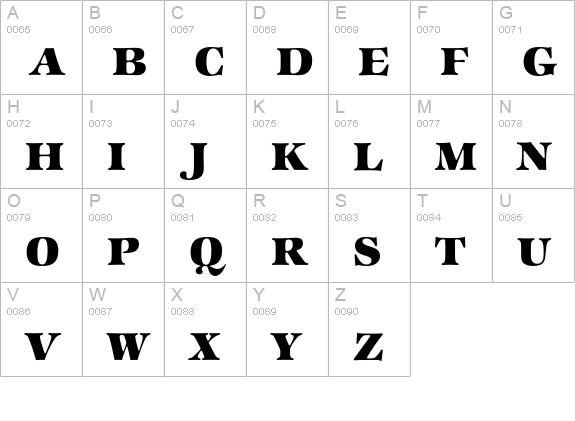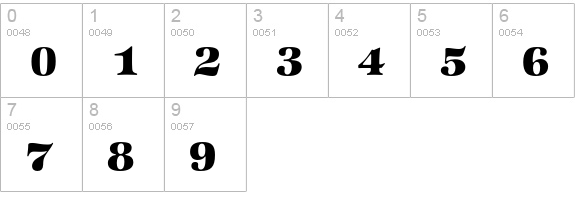
ZapfInternationalEF-Heavy Font Details
ZapfInternationalEF-Heavy is a heavy, high-impact variant in the ZapfInternationalEF typeface family \xE2\x80\x94 well suited to high-impact headlines, posters, and display advertising.
ZapfInternationalEF-Heavy is a bold and expressive font that exudes a sense of strength and modernity. With its sleek lines and prominent presence, this typeface is perfect for making a statement in any design project. Whether you're creating a striking headline or a powerful logo, ZapfInternationalEF-Heavy will command attention and leave a lasting impression. The best part? ZapfInternationalEF-Heavy is available for free download at FontsMarket.com. This means you can easily access this impressive font and enhance your designs without any cost. Embrace the boldness and sophistication of ZapfInternationalEF-Heavy in your next project and watch it come to life with style and impact.